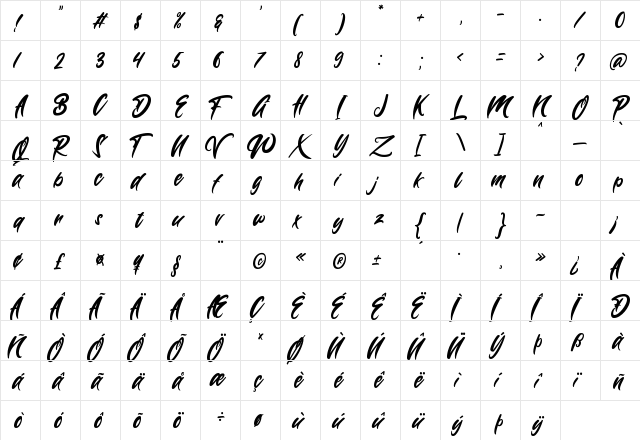
Wynter Sandy Regular
Design Context for Wynter Sandy Typeface
Wynter Sandy is a composed and adaptable typeface that performs quietly and consistently across a wide range of design contexts.